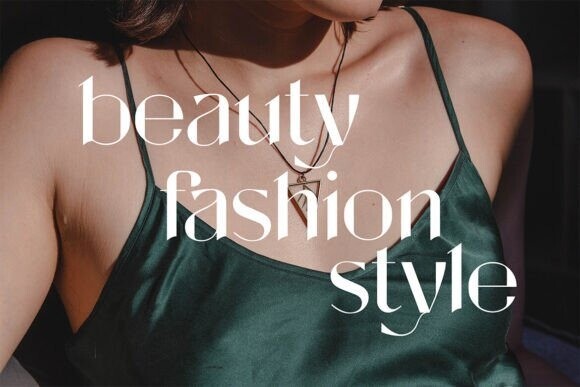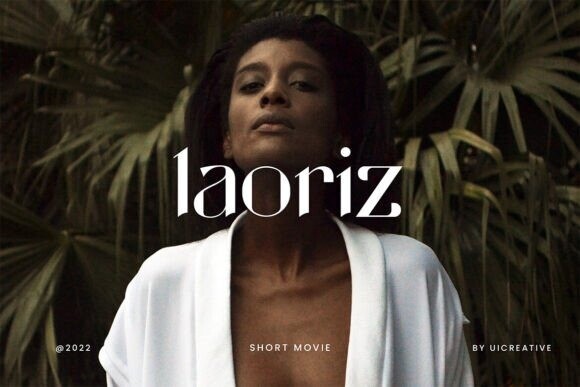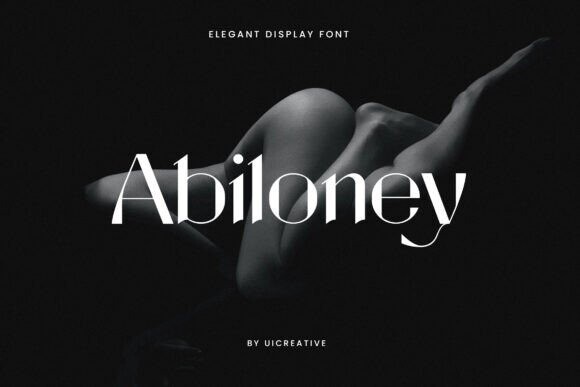
Abiloney Font
Abiloney Font is an elegant and bold serif font. Fall in love with its incredibly versatile style and use it to create gorgeous wedding invitations, beautiful stationary art, eye-catching social media posts, and much more!